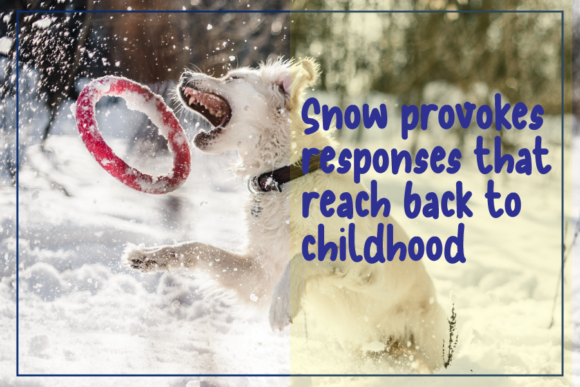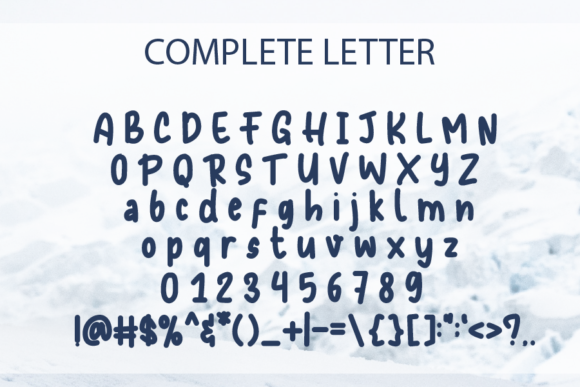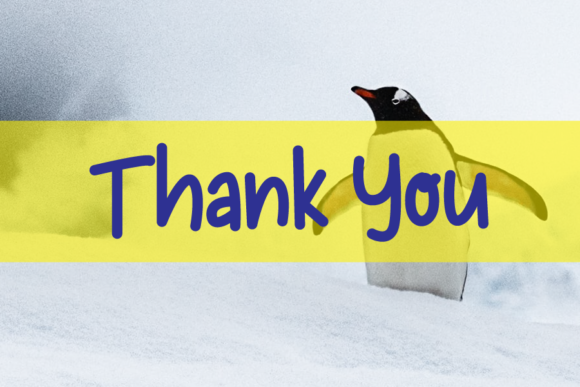
Introducing Happy Snow Font: The Perfect Handwritten Font for Designers and Crafters
Are you a designer, crafter, or digital artist looking for a modern and neat handwritten font to elevate your creative projects? Look no further than Happy Snow Font! This versatile and charming font is perfect for a wide range of applications, from crafting and digital designing to presentations and greeting cards making.
What is Happy Snow Font?
Happy Snow Font is a modern and neat handwritten font that is designed to bring a touch of warmth and personality to your creative projects. Its clean and elegant lines make it perfect for a variety of uses, from formal to informal, and its friendly and approachable feel ensures that it will connect with your audience.
Key Features of Happy Snow Font
- Modern and Neat Design: Happy Snow Font features a modern and neat design that is both elegant and easy to read.
- Handwritten Style: The font’s handwritten style gives it a friendly and approachable feel that’s perfect for a wide range of creative projects.
- Versatile: Happy Snow Font is versatile and can be used for a variety of applications, including crafting, digital designing, presentations, and greeting cards making.
- Easily Readable: The font is easily readable, making it perfect for both digital and print applications.
Uses of Happy Snow Font
Happy Snow Font is perfect for a wide range of creative projects, including:
- Crafting: Use Happy Snow Font to add a personal touch to your crafting projects, such as handmade cards, gift tags, and scrapbooking.
- Digital Designing: Happy Snow Font is perfect for digital designers who want to add a touch of elegance and sophistication to their designs, such as social media graphics, blog headers, and website elements.
- Presentations: Use Happy Snow Font to add a professional and modern touch to your presentations, such as slides, reports, and proposals.
- Greeting Cards Making: Happy Snow Font is perfect for creating beautiful and personalized greeting cards for special occasions, such as birthdays, weddings, and holidays.
Benefits of Using Happy Snow Font
By using Happy Snow Font, you can enjoy a range of benefits, including:
- Unique and Creative Designs: Happy Snow Font allows you to create unique and creative designs that stand out from the crowd.
- Easily Customizable: The font is easily customizable, allowing you to adjust the size, color, and style to suit your needs.
- Time-Saving: Happy Snow Font saves you time and effort, as you can quickly and easily create professional-looking designs.
- Cost-Effective: Happy Snow Font is a cost-effective solution for designers and crafters, as it can be used for a wide range of projects.
| Font Name | Happy Snow Font |
| Author | merge354 |
In conclusion, Happy Snow Font is a modern and neat handwritten font that is perfect for designers, crafters, and digital artists. Its versatile design, friendly feel, and easily readable style make it ideal for a wide range of creative projects. Whether you’re crafting, designing, or creating presentations, Happy Snow Font is the perfect choice. So why wait? Download Happy Snow Font today and start creating beautiful and unique designs that will impress your audience!